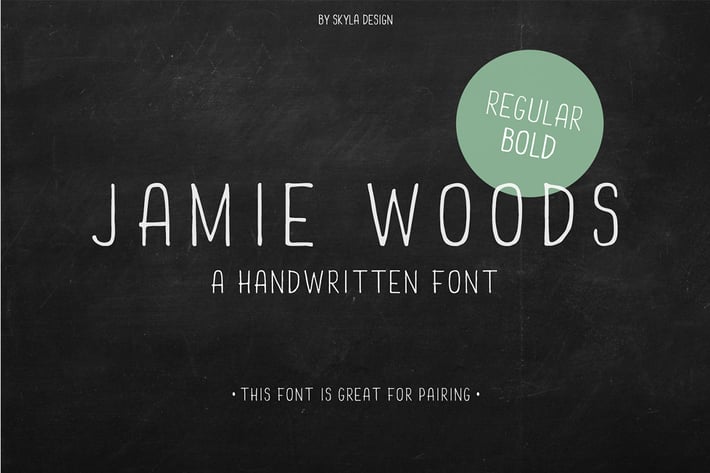
Skinny condensed font Jamie Woods
Jamie Woods is a condensed, handwritten font which comes in a Regular & Bold version. It's a great font to use for pairing with other fonts and will look great on all your designs and branding materials.